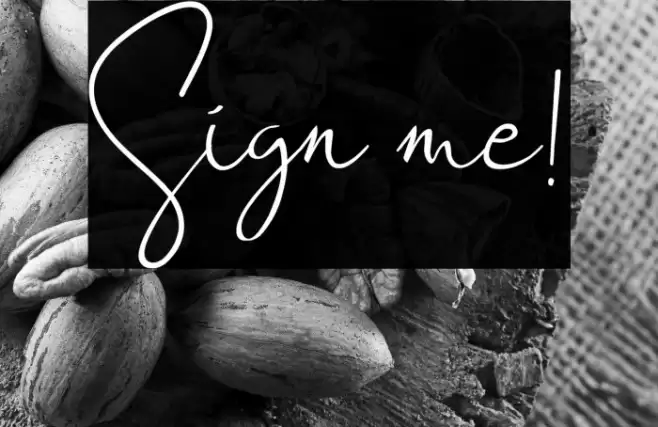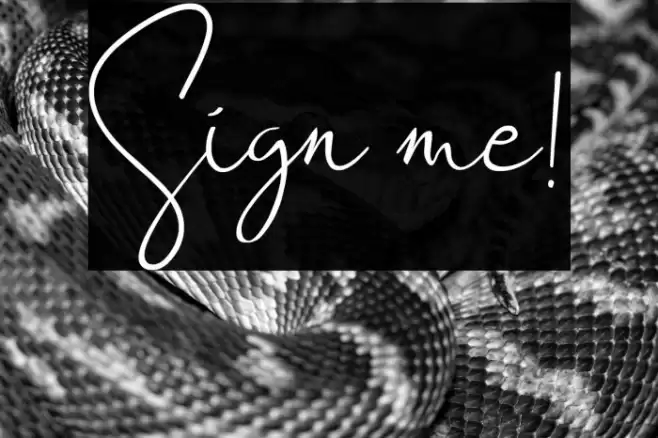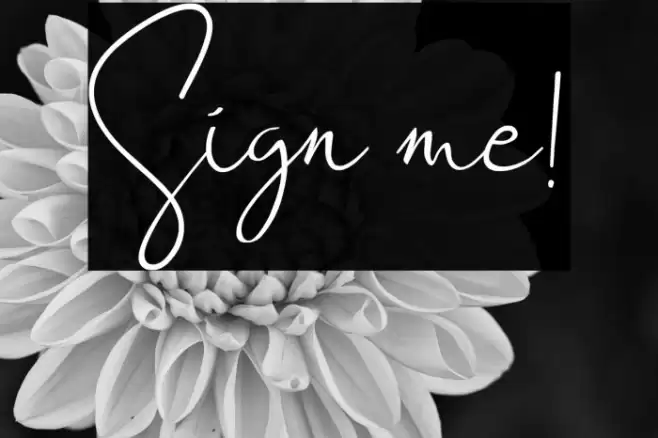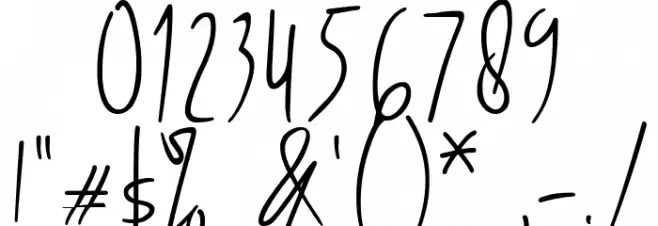
Sign me! Font
Sign me! Description
This font features a dynamic and fluid handwritten style, characterized by its elegant and flowing script. The uppercase letters are tall and slender, with a slight slant that adds a sense of motion and grace. The lowercase letters maintain a consistent flow, with smooth connections between characters, enhancing its cursive appeal. Numbers and special characters are designed to match the overall aesthetic, providing a cohesive look. The font's organic and personal touch makes it ideal for projects that require a humanistic and approachable feel.
A fluid and elegant handwritten script font with a dynamic flow from Regular fonts.
- Proposed Projects: Ideal for wedding invitations, personal branding, greeting cards, and artistic projects that require a personal touch.
- Use Case: Logos, Invitations, Personal Branding